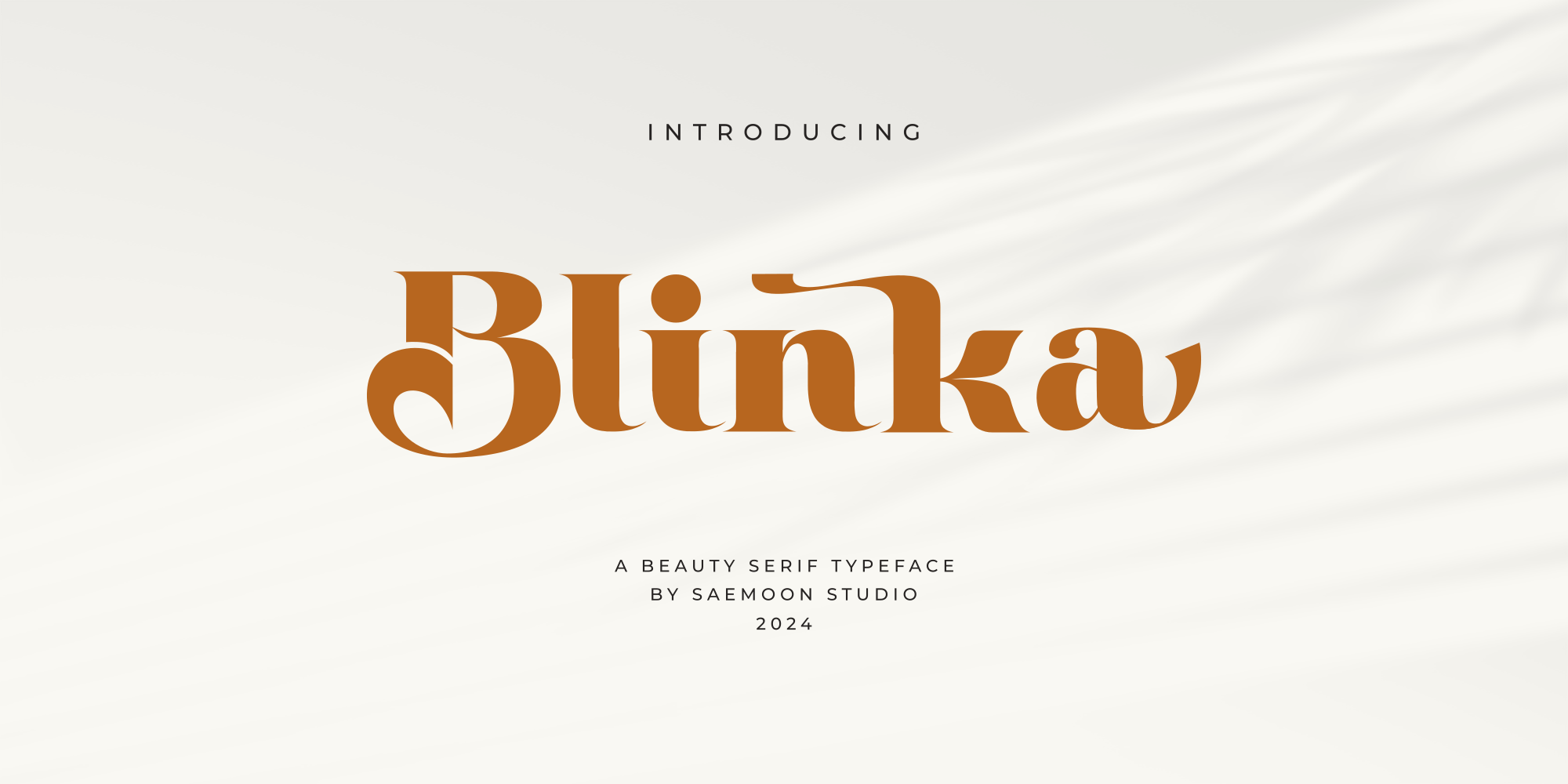
Looking for a sleek and contemporary typeface that commands attention? Blinka Font Free Download is perfect for branding, digital media, posters, and editorial design that demand a modern and clean look. Its sharp edges and balanced structure ensure high readability while giving your designs a fresh, dynamic vibe.
Whether you’re working on tech startups, fashion brands, or digital campaigns, Blinka Font Free Download adds a polished and vibrant touch to your typography.